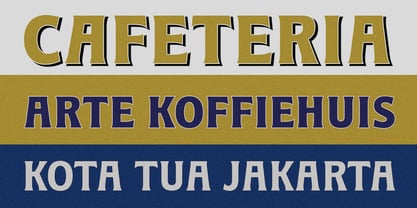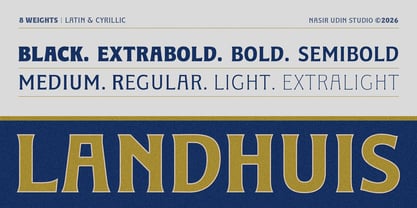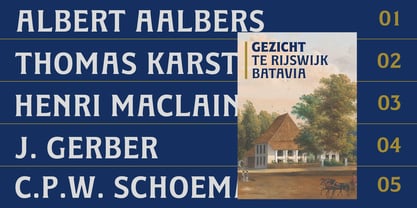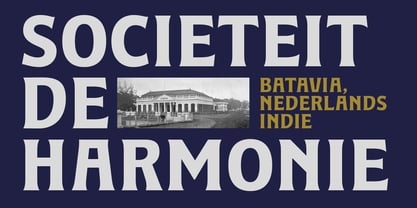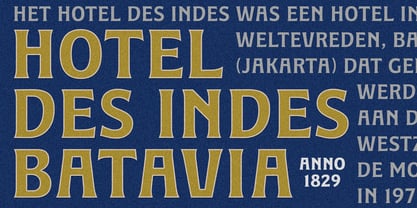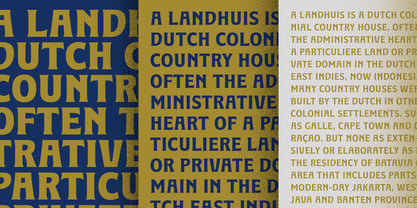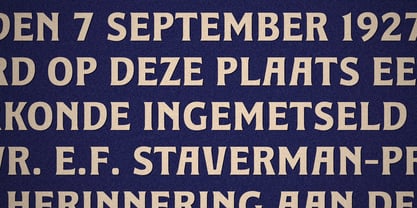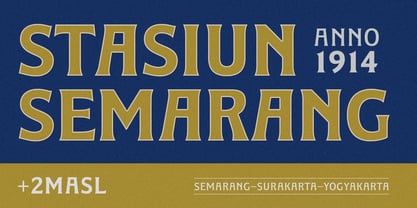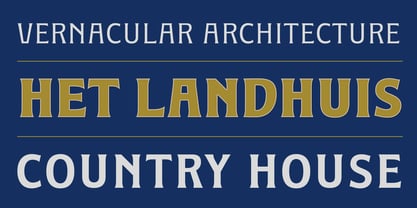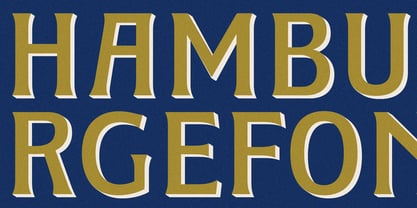
Landhuis
by Nasir Udin
The Landhuis Font Family was designed by Nasir Udin and published by Nasir Udin. Landhuis contains 8 styles and family package options. More about this family
Landhuis is an all-caps display typeface inspired by a historic inscription found on the facade of a coffee plantation farmhouse in East Java. Drawing from the Nederlandsch-Indië (Dutch East Indies) era in Indonesia—a period heavily influenced by Art Deco and Art Nouveau design—Landhuis channels classic colonial aesthetics into a modern toolkit.
Named after the Dutch word for "country house", the typeface honors the historic 18th and 19th-century estate houses built across former Dutch territories. With 8 versatile weights and extensive Latin and Cyrillic support, Landhuis bridges historic elegance with modern functionality.
Before he got into type design, he had designed travel posters under the Vectro label. His illustrative style is an impression of similar posters from the mid 20th century. As a designer, he enjoy looking to both the past and the future for inspiration. That's why he love to blend a retro style with a futuristic concept. He started type design on 2016 as his side project, before he take it seriously. You can follow @studio.nasir on Instagram, he loves to capture a lettering on old buildings (Dutch, Chinese, Arabic, blend with the local Javanese).